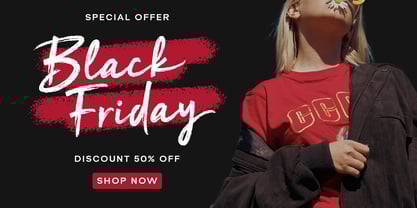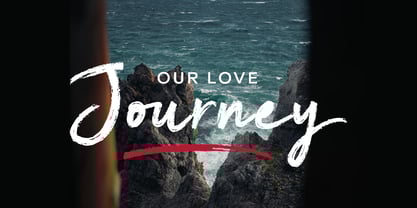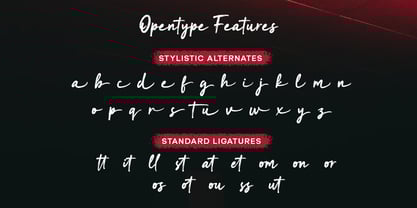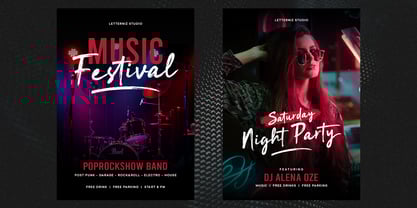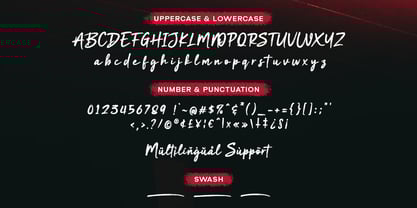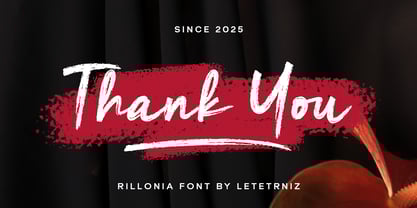
Rillonia
by Letterniz
The Rillonia Font Family was designed by Nizar Bagas Maulana and published by Letterniz. Rillonia contains 1 styles.
Rillonia is a beautiful brush signature font, with its rugged texture and dynamic letterforms. Made for any professional project brandings, such as, signature logos, watermarks, wedding invitations, brandings, promotions, product packagings, posters, apparel, and any project that needs a touch of authenticity and creativity.
Rillonia brush font includes a full set of hand-writing uppercase and lowercase letters, numerals, punctuations, and ligatures. This font gives a realistic hand-writing style.
What’s included:
- Uppercase & lowercase letters
- Numerals & punctuation
- Multilingual support
Designers: Nizar Bagas Maulana
Publisher: Letterniz
Foundry: Letterniz